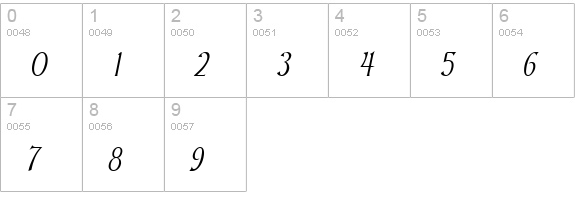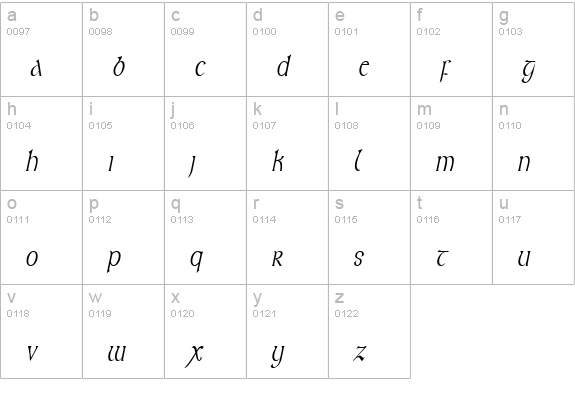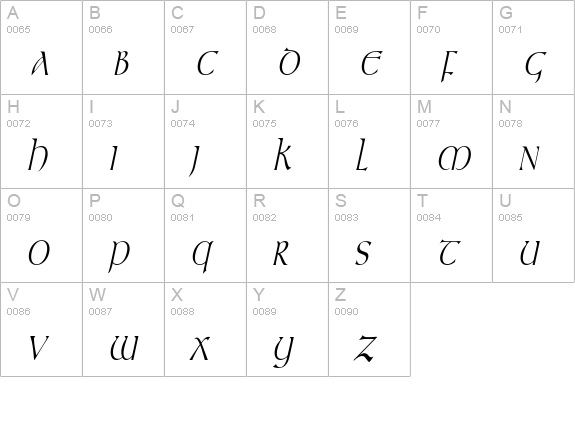
Kelt Thin Italic is a delicate, low-contrast, italic variant in the Kelt typeface family \xE2\x80\x94 well suited to fashion editorial, minimal branding, and high-contrast display.
Introducing Kelt Thin Italic, a striking and elegant font that effortlessly captures attention with its delicate and contemporary design. This font is the perfect choice for those seeking a touch of sophistication and refinement in their projects. With its slender and graceful strokes, Kelt Thin Italic exudes a sense of modernity and style. Each letter is meticulously crafted, featuring subtle curves and a slight slant that adds a touch of dynamism to every word. The thin weight of this font gives it a delicate and ethereal quality, making it ideal for projects that require a subtle yet impactful touch. Kelt Thin Italic is both versatile and adaptable, making it suitable for a wide range of applications. From branding and logo designs to elegant invitations and editorial layouts, this font effortlessly elevates any project it is used in. And the best part? Kelt Thin Italic is available for free download exclusively at FontsMarket.com. This means that anyone can easily access this exquisite font and enhance their designs without any financial barriers. Whether you are a professional designer or an aspiring creative, Kelt Thin Italic allows you to unleash your creativity and bring your vision to life without any restrictions. So, why wait? Download Kelt Thin Italic today and experience the freedom of adding a touch of elegance and sophistication to your designs. Let this font be the perfect companion in showcasing your creativity and capturing the attention of your audience.